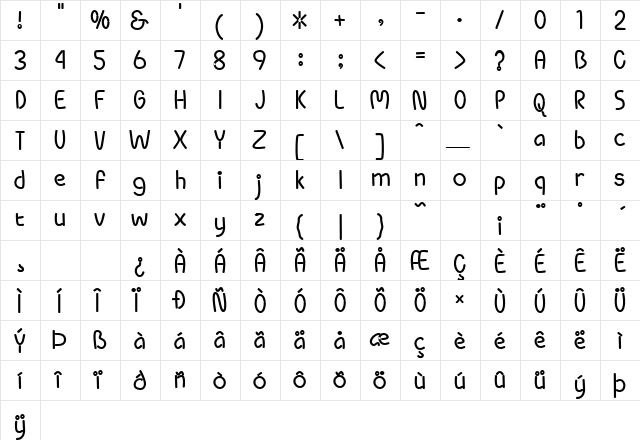
Pippi BV Color Fill
Design Context for Pippi BV Typeface
Pippi BV is a composed and adaptable typeface that performs quietly and consistently across a wide range of design contexts.